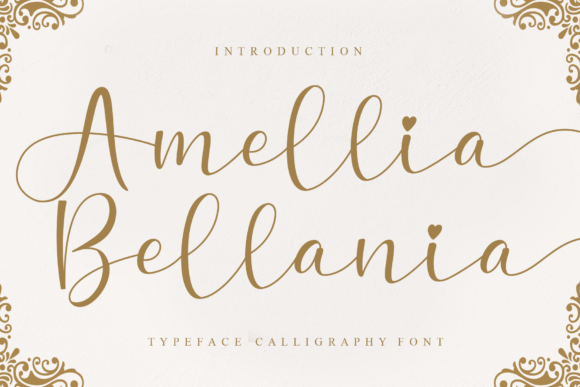
The Perfect Blend of Elegance and Versatility
As a designer, there’s nothing quite like the thrill of creating something new and beautiful. You’re brainstorming ideas, experimenting with colors and shapes, and bringing your vision to life. And then, it happens – the perfect font appears, and everything falls into place. For many of us, that moment is what makes design truly magical.
Enter Amellia Bellania Font, a delicate and elegant handwritten font that’s sure to capture your heart. Its well-rounded letters and distinct style make it a masterpiece that’s perfect for creating spectacular designs. Whether you’re designing a wedding invitation, a logo, or a marketing campaign, Amellia Bellania Font is the perfect choice for adding a touch of sophistication and elegance.
For designers, Amellia Bellania Font is a valuable asset that can elevate your designs to the next level. Its versatility makes it suitable for a wide range of projects, and its beauty is sure to impress clients and audiences alike. So why not fall in love with Amellia Bellania Font and see what kind of amazing designs you can create with it?
Amellia Bellania Font Key Features
- Font Family: Amellia Bellania is a unique, elegant script font.
- Size and Resolution: Amellia Bellania Font supports a wide range of font sizes and resolutions, making it ideal for digital and print applications.
- Language Support: The font supports multiple languages, including Latin-based languages, making it a versatile choice for global projects.
- Unique Characteristics: Amellia Bellania Font features beautiful, flowing connections between letters, giving it a distinctive and elegant look.
- Font Style: This script font is designed for use in titles, headings, and other display text, adding a touch of sophistication and elegance to any design.
Amellia Bellania Font Review
I’ve had the chance to work with the Amellia Bellania font, and I must say it’s a beautiful, elegant script font. Here are some things that work well: ✨
- Legibility: The Amellia Bellania font is incredibly easy to read, even at smaller font sizes. The letters are well-spaced and well-designed.
- Style: The font has a unique, cursive style that’s perfect for adding a touch of sophistication to your designs.
- Character set: The font has a wide range of characters, including accents and punctuation marks.
- Lack of bold weight: While the font is great for body text, it doesn’t have a bold weight option, which can make it difficult to use for headings or emphasis.
- No italic option: Similar to the bold weight, there’s no italic option available, which can limit its versatility.
Overall, I think the Amellia Bellania font is a great choice for designers looking for a elegant, cursive script font. While it has some limitations, its strengths far outweigh its weaknesses. With a little creativity and workarounds, you can use this font to create beautiful, professional designs.
For best results, use Amellia Bellania Font for designs that require a elegant and sophisticated look, such as wedding invitations, business cards, and product packaging.
Alternatives to Amellia Bellania Font
Playfair Display is an elegant, luxurious serif font ideal for high-end branding, luxury products, and fine art projects. Its refined look and feel evoke a sense of sophistication and refinement. Compared to Amellia Bellania Font, Playfair Display is more ornate and luxurious, making it suitable for high-end applications.
Pacifico is a beautiful, modern script font perfect for creating a relaxed, beachy vibe. It’s ideal for branding, packaging, and advertising projects that require a touch of warmth and personality. In contrast to Amellia Bellania Font, Pacifico is more casual and laid-back, making it suitable for projects that require a friendly, approachable tone.